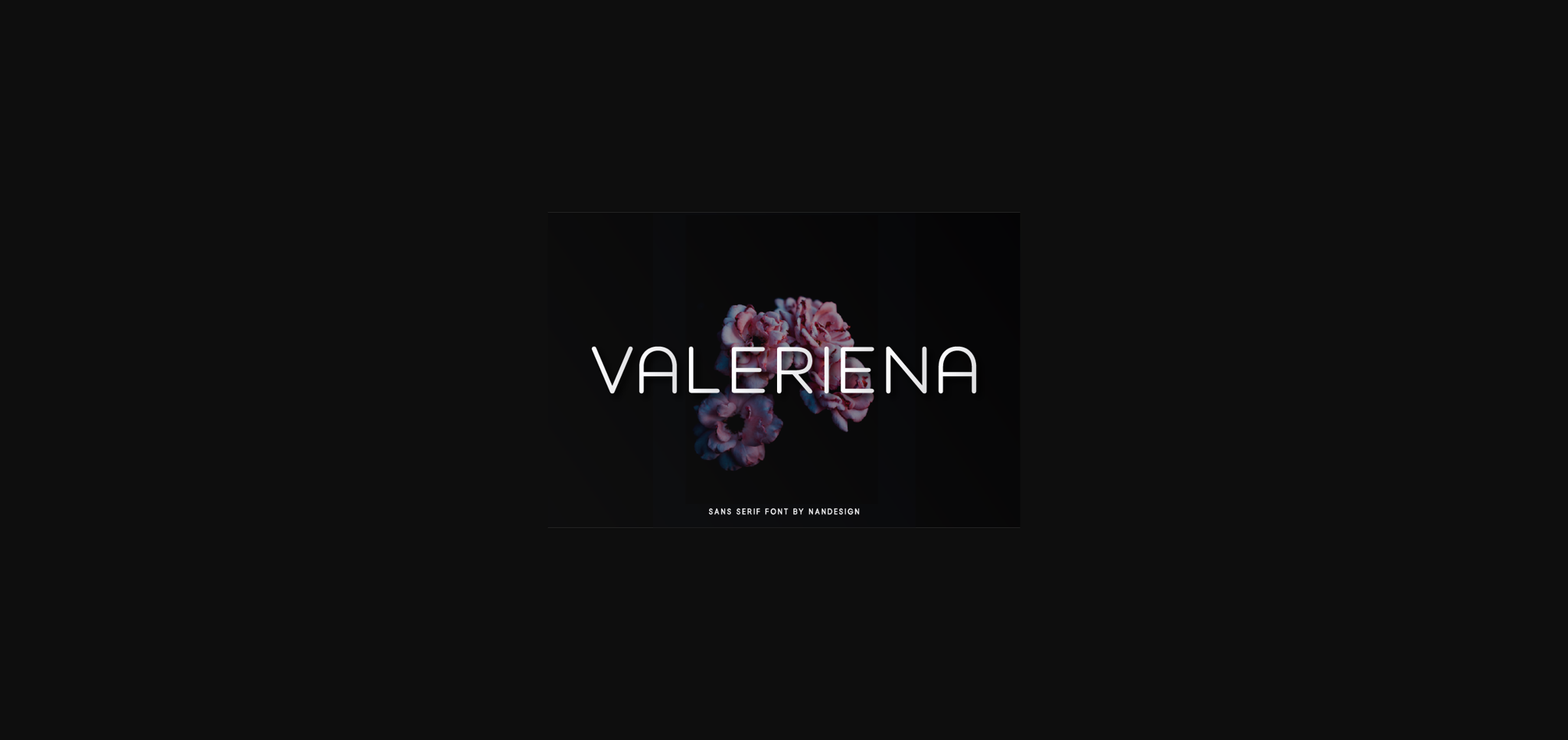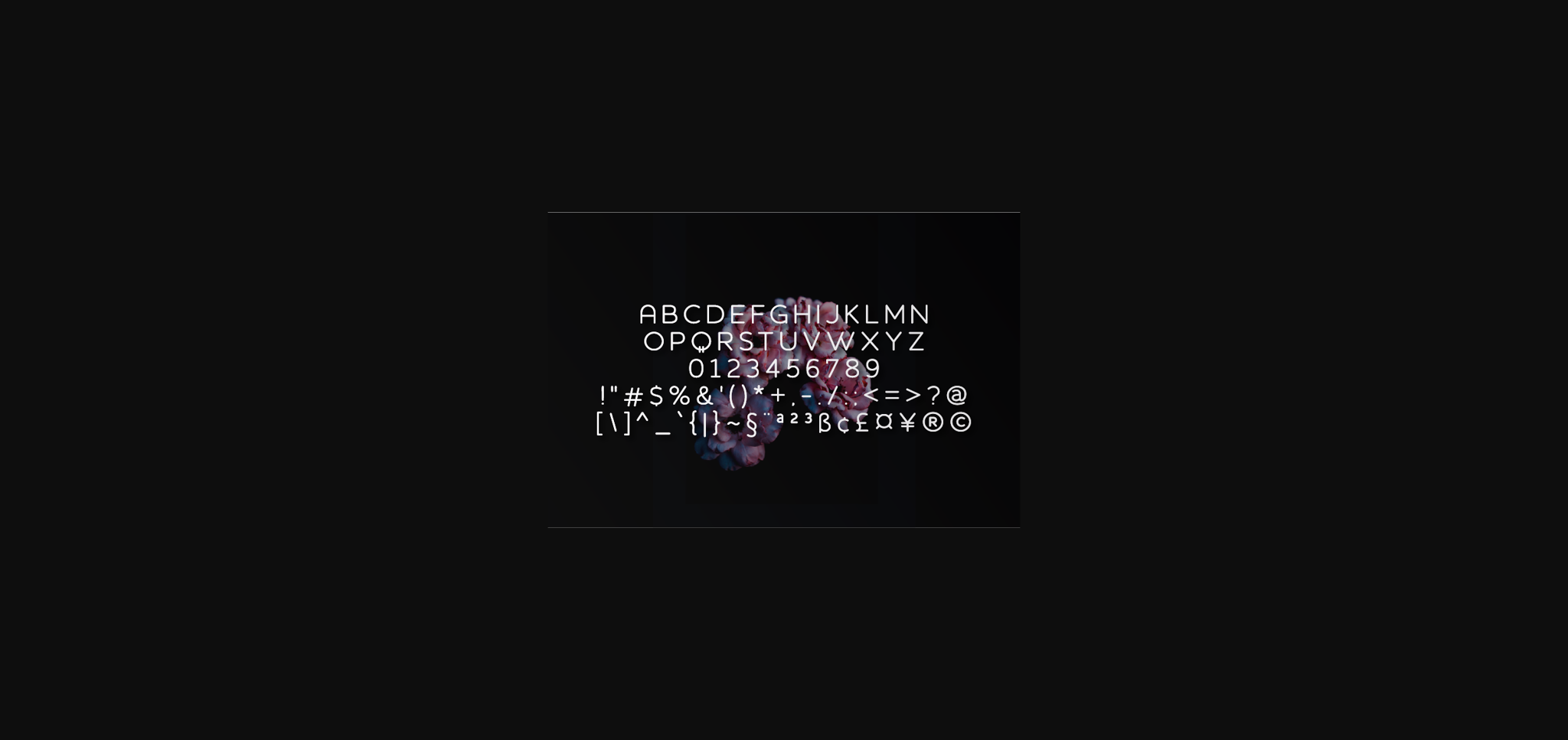
Valeriena Font
About Valeriena Font
Valeriena is a neat, very versatile sans serif font. It will match a wide range of design projects, be it branding, headings, wedding designs, invitations, signatures, logos, labels, and much more!